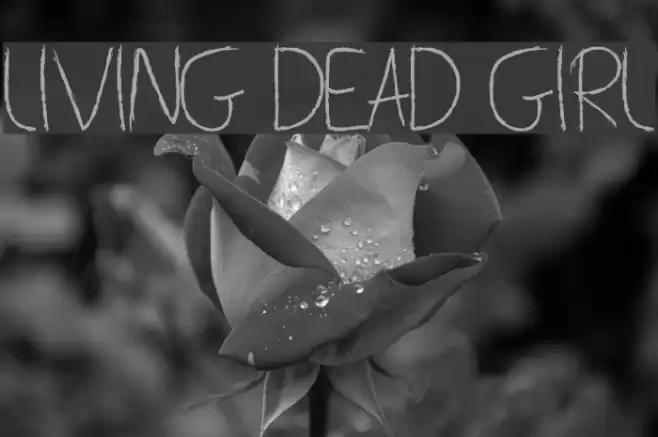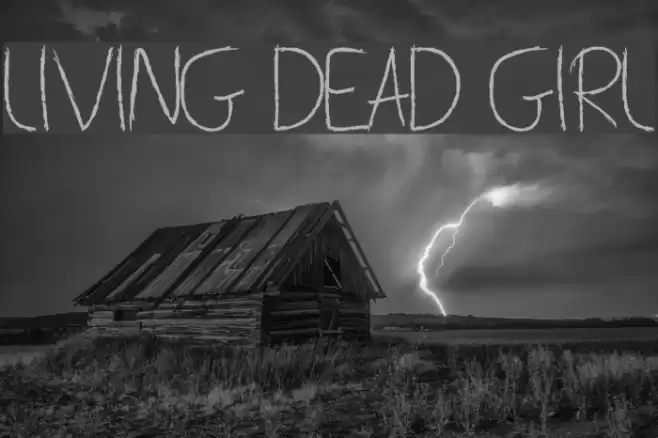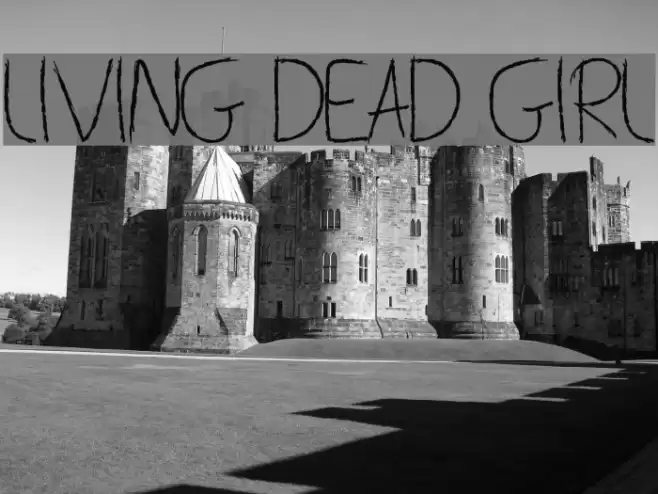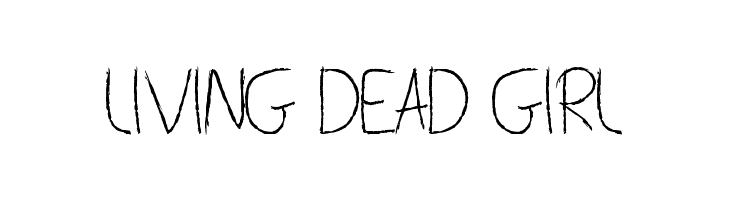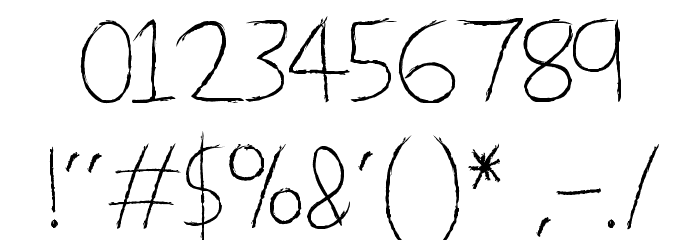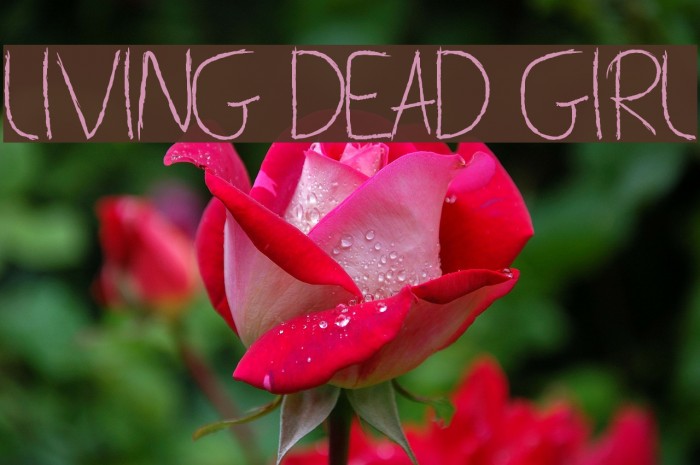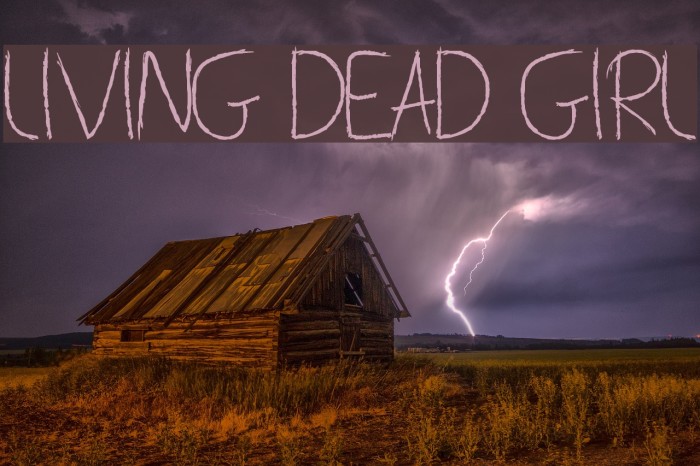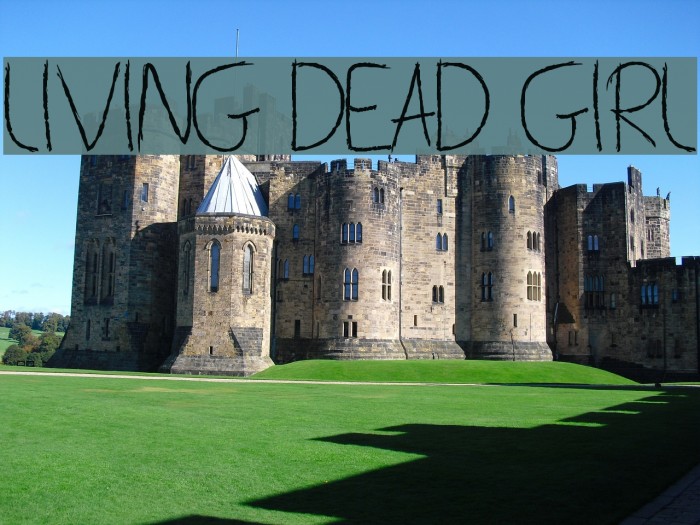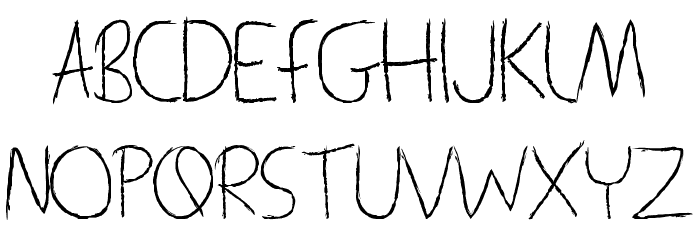
Living Dead Girl Font
Living Dead Girl Description
This font features a distinctive, hand-drawn style with a slightly rough and uneven texture, reminiscent of scratchy handwriting. The characters are tall and narrow, with a playful yet edgy appearance. The strokes vary in thickness, adding to the font's dynamic and energetic feel. The uppercase and lowercase letters maintain a consistent style, while the numbers and special characters blend seamlessly into the overall design. This font's unique character makes it stand out, offering a creative and unconventional look.
A scratchy, hand-drawn font with an edgy, dynamic style from Uncategorized fonts.
- Proposed Projects: Ideal for horror-themed posters, album covers, or any project requiring a bold, unconventional typeface.